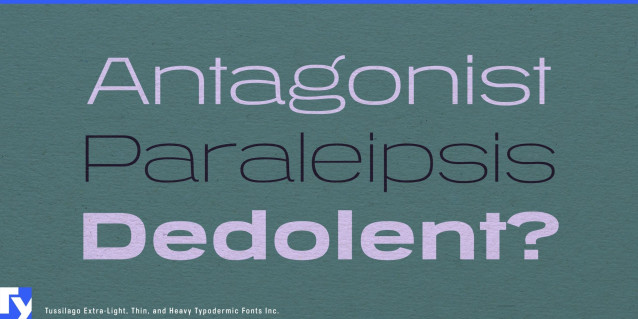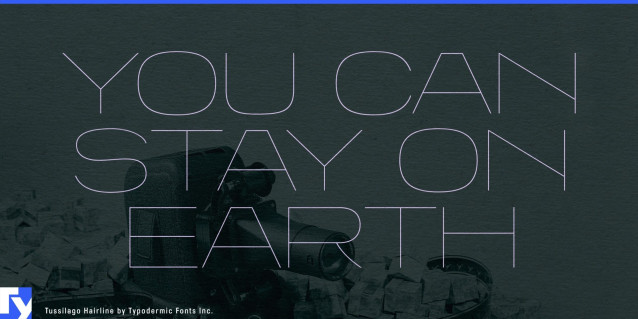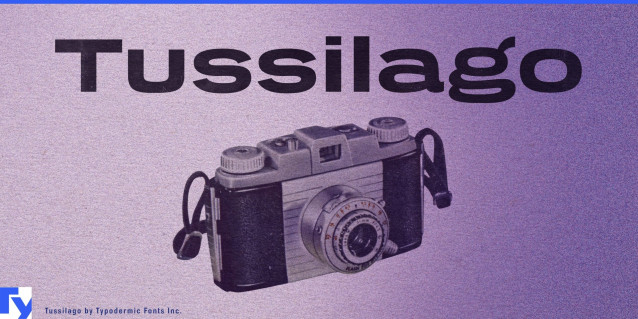
Tussilago Font
Tussilago Font is a wide sans-serif typeface with one foot in the mid-twentieth century and the other planted firmly in the present. Its extended letterforms recall the confident proportions of vintage display faces, but subtle detailing and modern spacing make it ready for contemporary work.
Seven carefully graded weights, each with a matching italic, give you full control over tone—from the refined precision of Extra-Light to the commanding presence of Heavy. Old-style and lining numerals are built in, so you can fine-tune the mood of everything from editorial layouts to brand identities. Tussilago’s openness and clarity make it just as comfortable in bold headlines as it is in compact body text. Whether you’re working on packaging, signage, film titles, or print campaigns, its sturdy geometry and generous width ensure strong impact without sacrificing legibility.
Supporting a broad range of Latin-based languages, Tussilago is a versatile tool for global communication. It delivers the warmth of a familiar classic and the polish of a modern workhorse—ready to help your design speak with unmistakable presence.